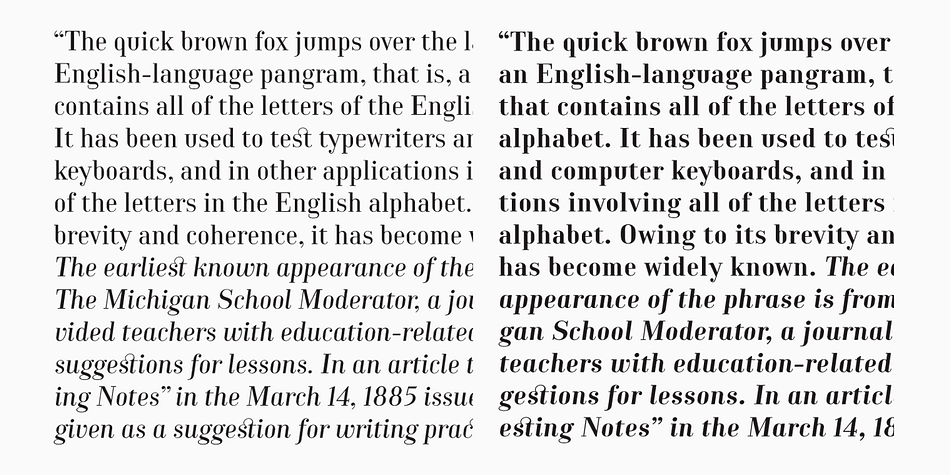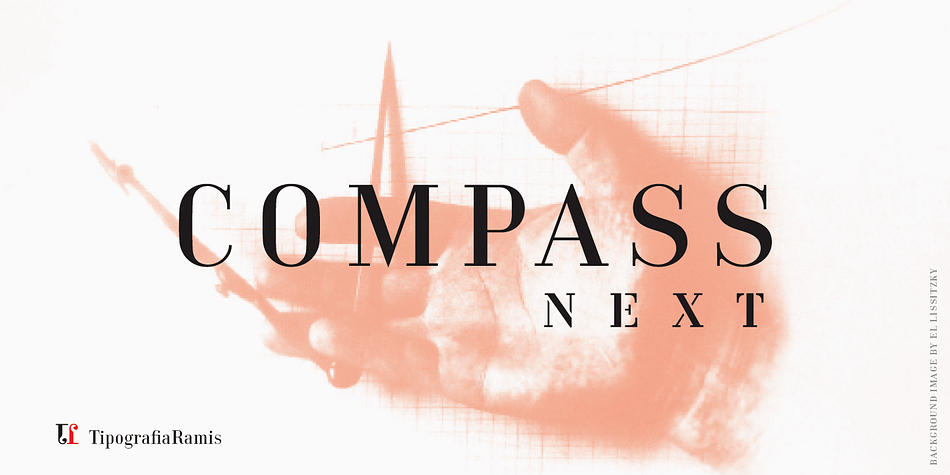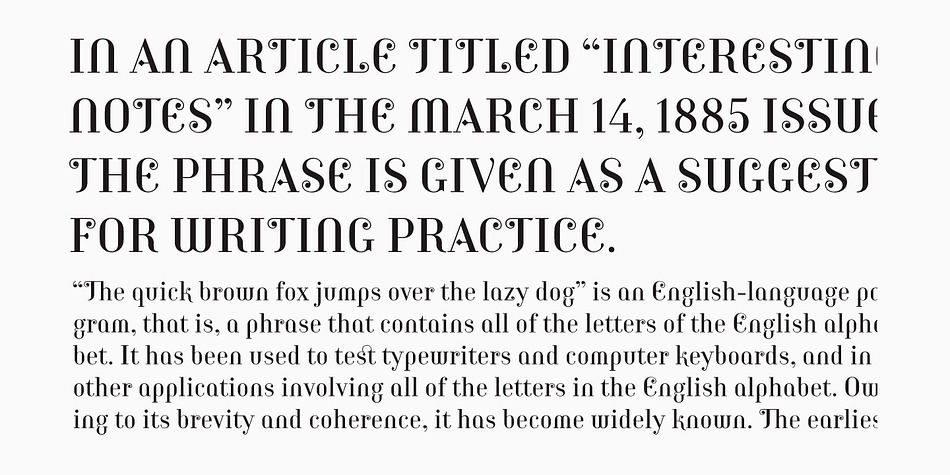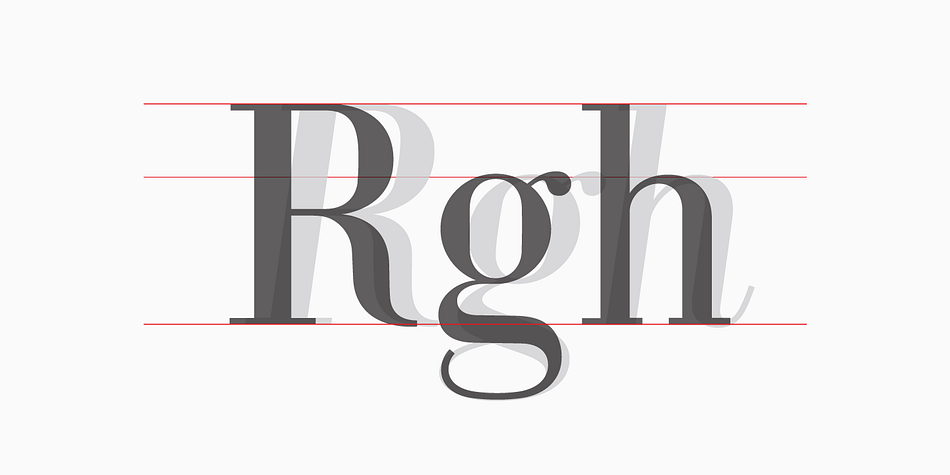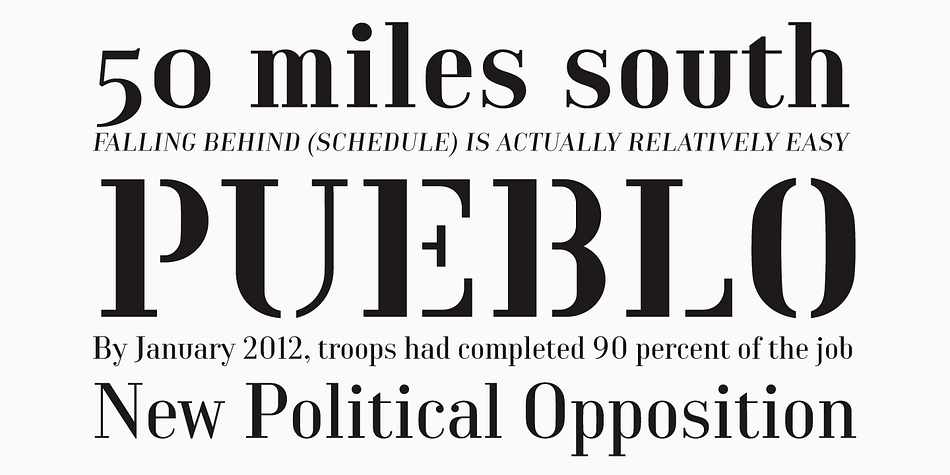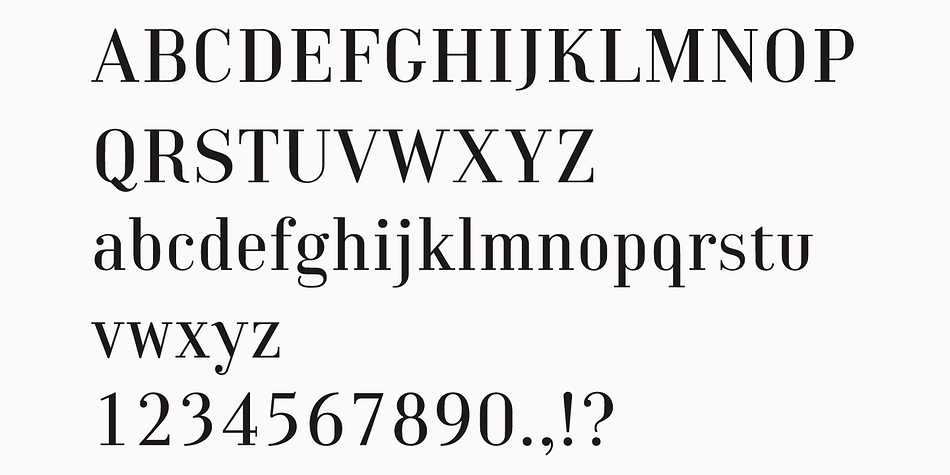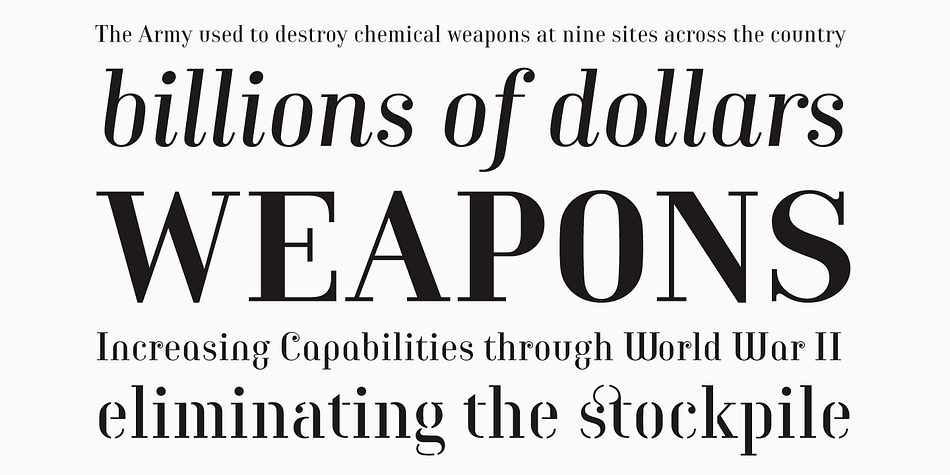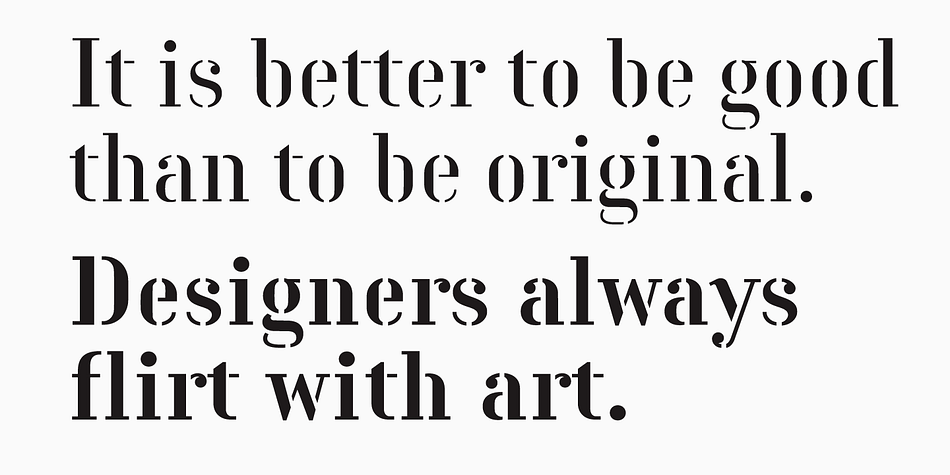
Designed by Ramiz Guseynov, Compass Next is a serif and stencil font family. This typeface has seven styles and was published by TipografiaRamis.
Compass Next is a third edition of Compass TRF designed in 2002. The first time Compass TRF has been conceived was as a “geometric” Didone – all letters literally were drawn with a ruler and a compass.
The second edition (2009) got additional styles – Flourish Initials and Small Caps. This time, the objective was to bring overall extreme geometrical expression closer to traditional letterform style of its “modern style” typeface category (Didone). All glyphs were redrawn including in alternative Decorative style, and additional Bold weight has been added.